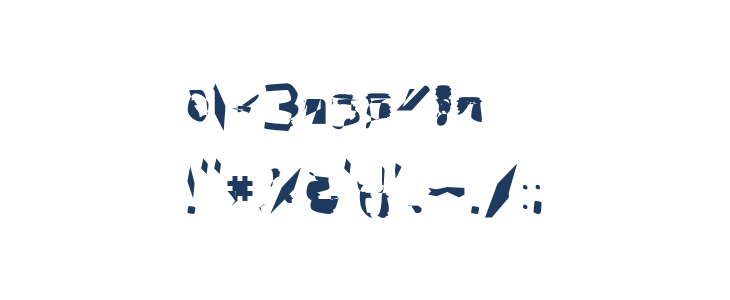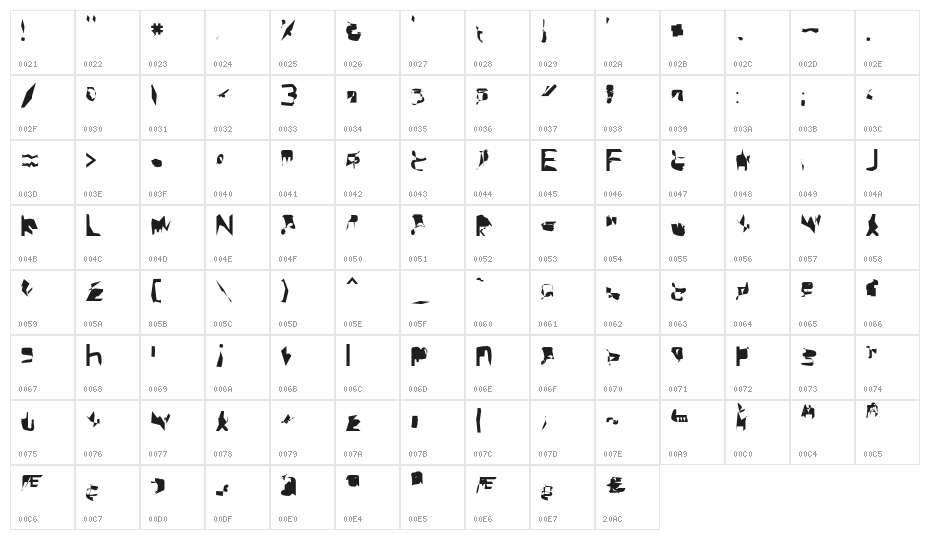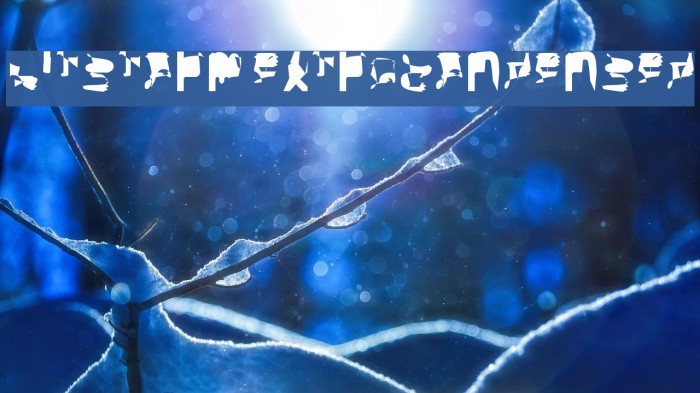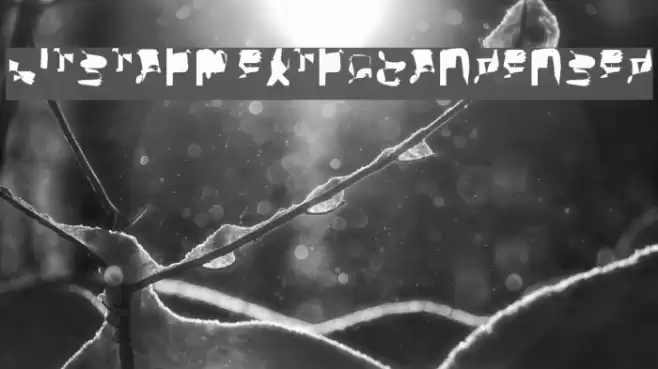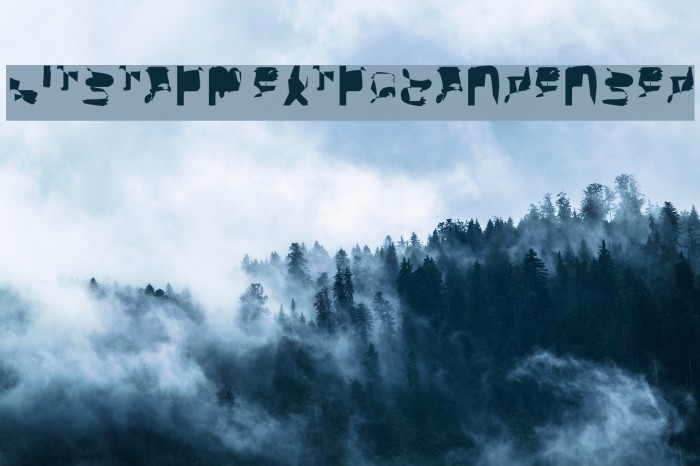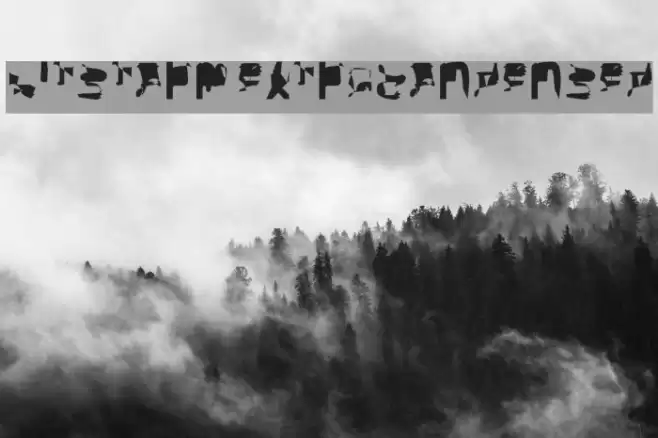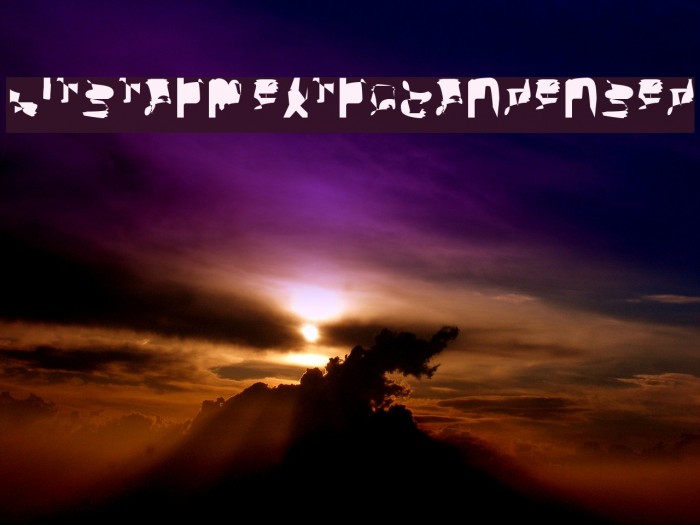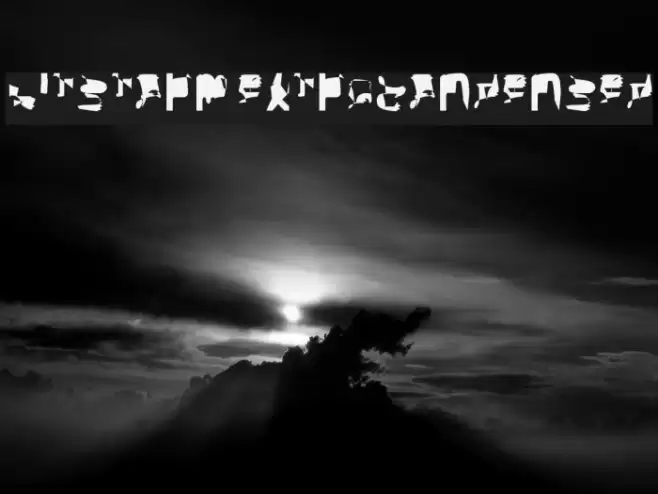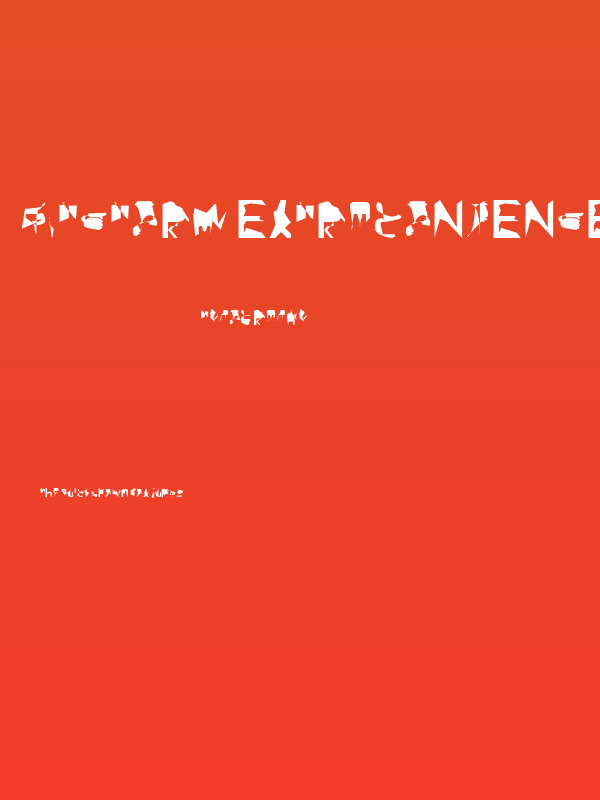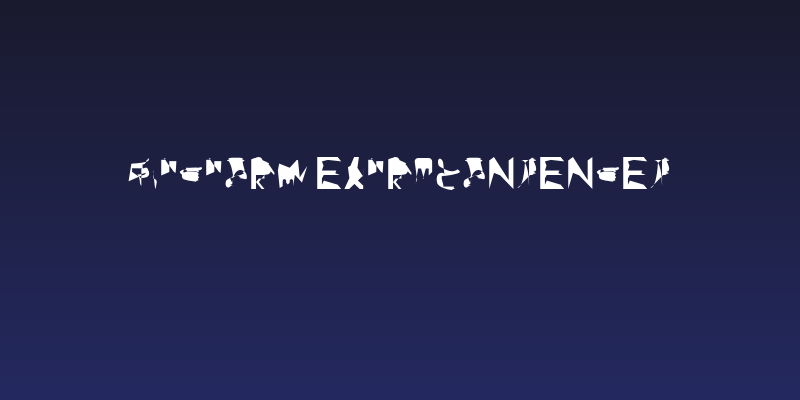
bitstorm extracondensed Font
bitstorm extracondensed Description
This font features a highly abstract and fragmented design, with each character appearing as if it has been shattered or distorted. The strokes are bold and irregular, creating a chaotic and dynamic visual effect. The characters are barely recognizable, with parts missing or exaggerated, giving it a unique and artistic appearance. This style is reminiscent of a deconstructed or glitch aesthetic, making it stand out with its unconventional and avant-garde look.
| Overall Style | Modern, Avant-garde |
| Use Case | Logos, Posters, Artistic projects |
| Proposed Projects | Ideal for experimental art projects, album covers, or any design that seeks to convey a sense of disruption or modern art. |